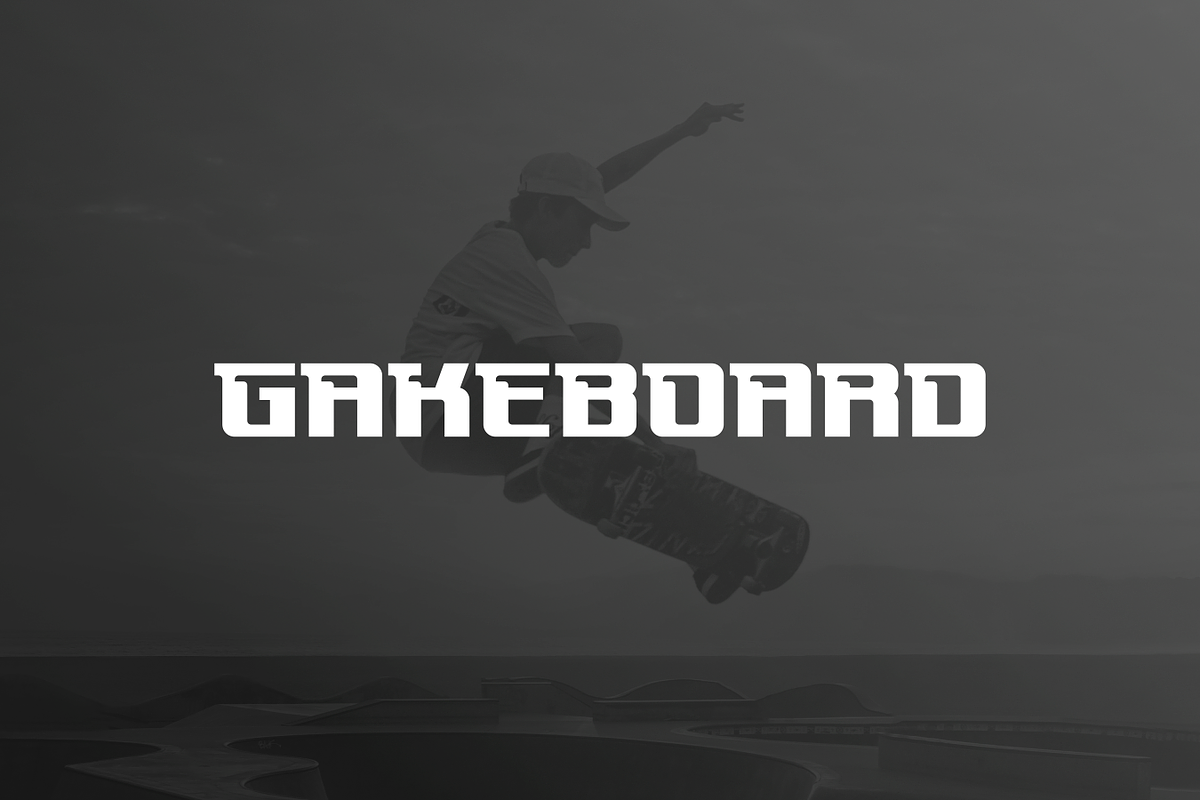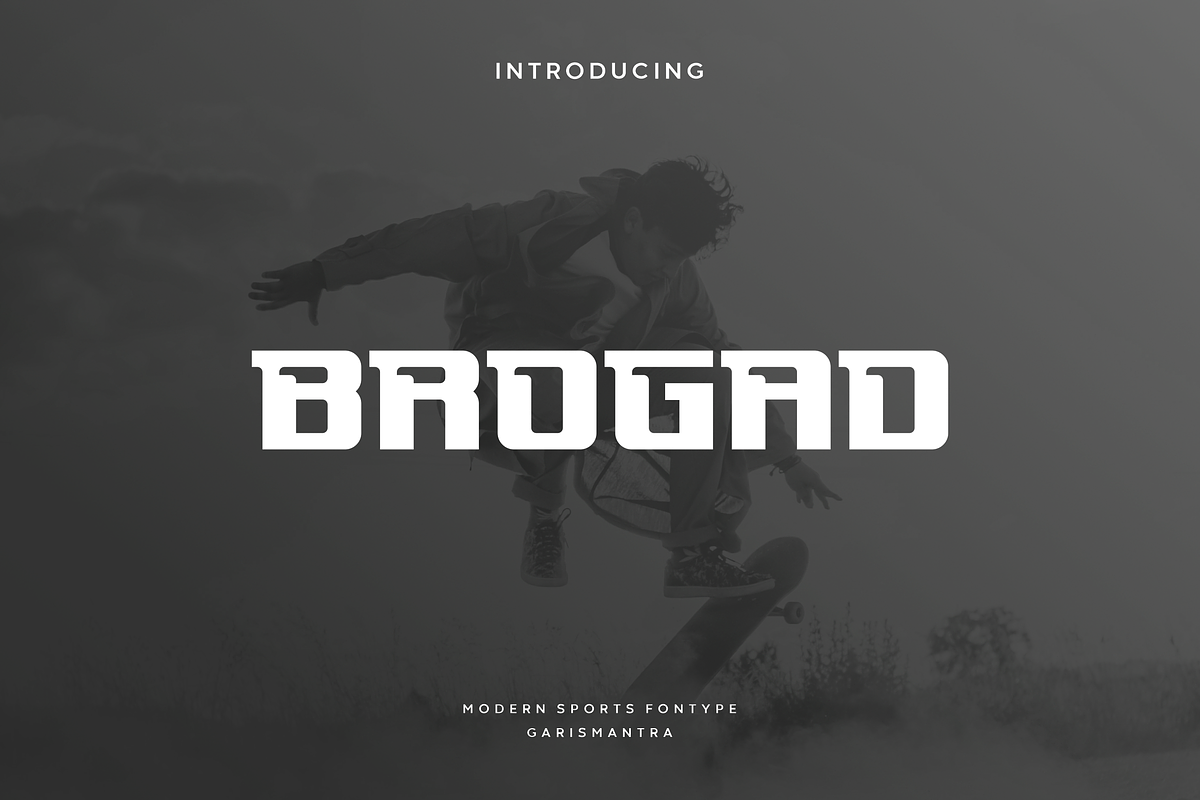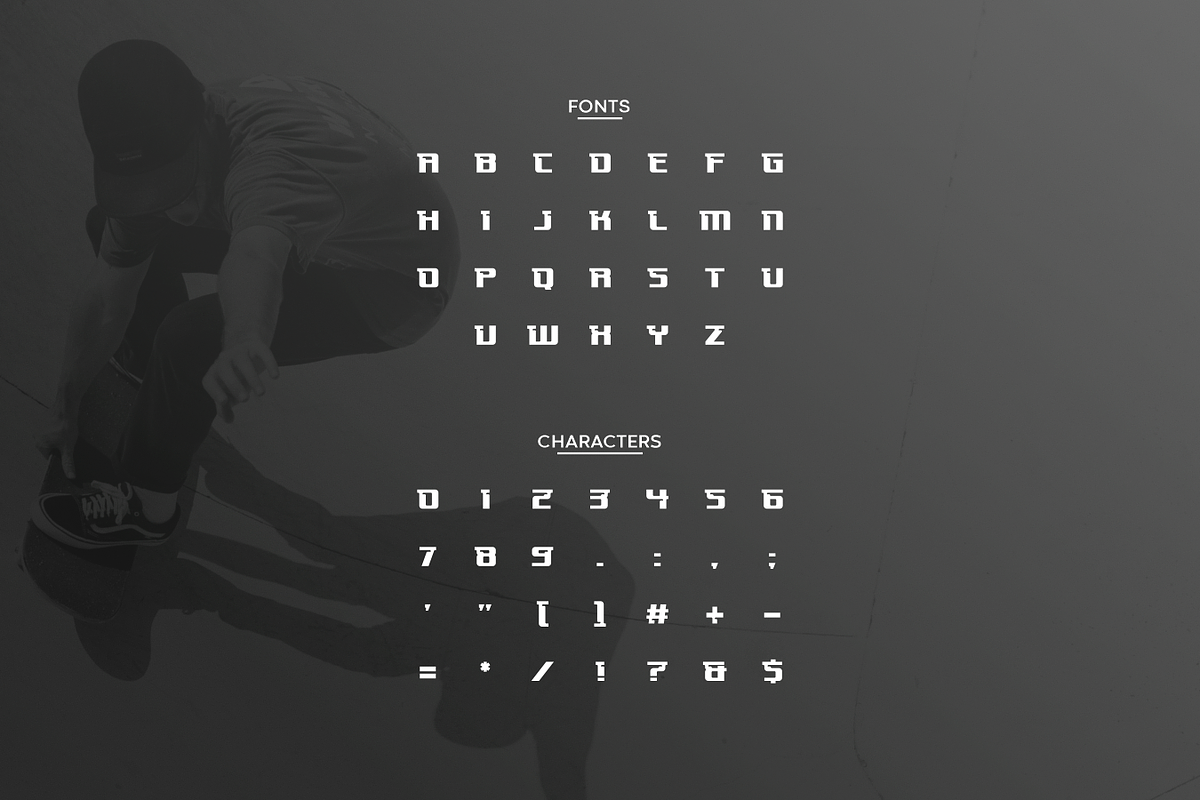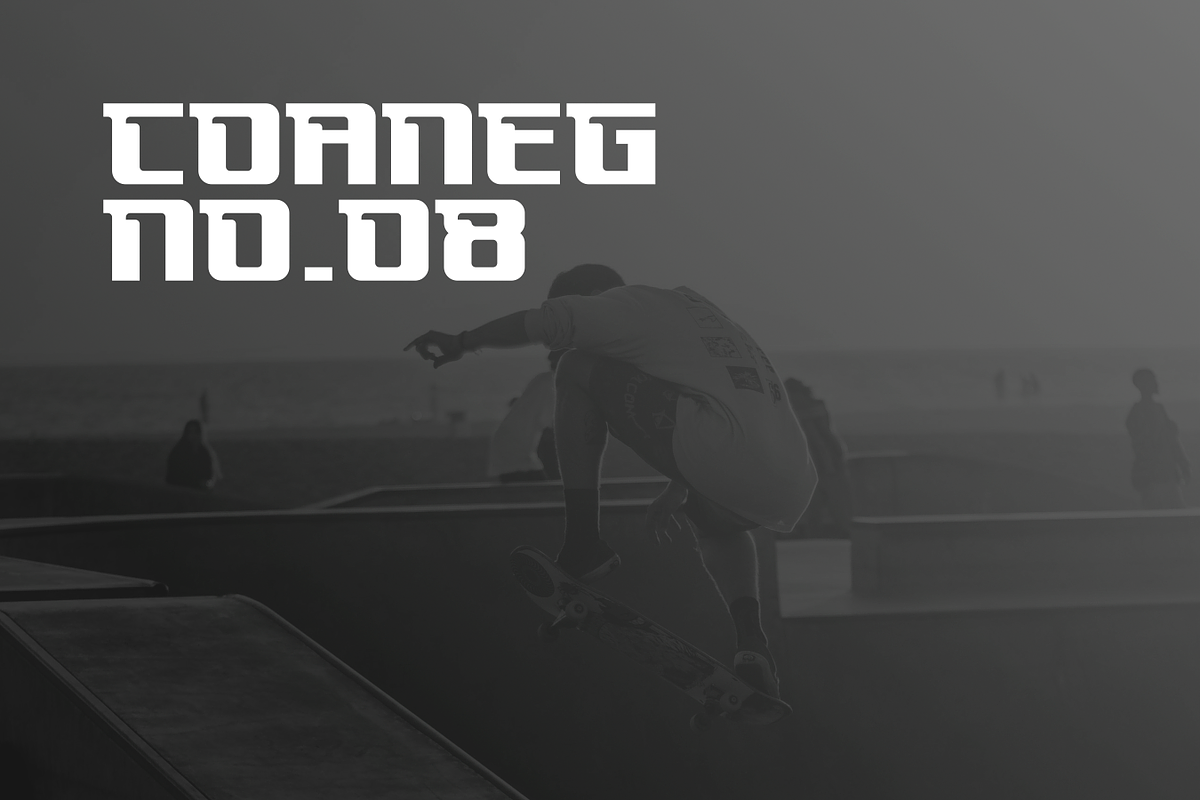
Brogad
Brogad is a decorative typeface that brings a mix of classic and modern styles into a new, minimalist style with accent pieces in every corner. This typeface is only available in all caps, will suit a variety of design needs, very suitable for making logo designs, headlines, also titles that are related to sports themes. Get it right away and use your imagination for more interesting, different and unique designs.